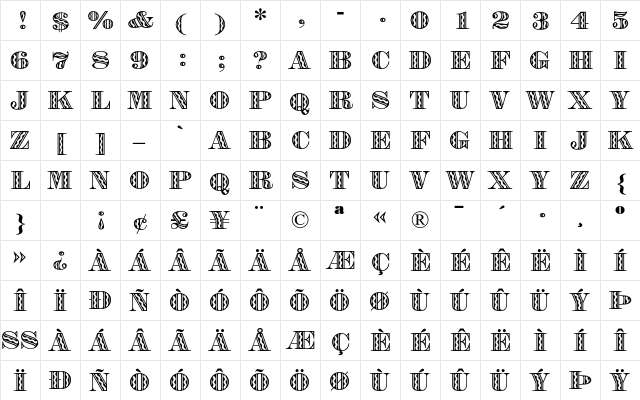
Falstaff Festival MT Std Regular
Design Context for Falstaff Festival MT Std Typeface
Falstaff Festival MT Std is a composed and adaptable typeface that performs quietly and consistently across a wide range of design contexts.